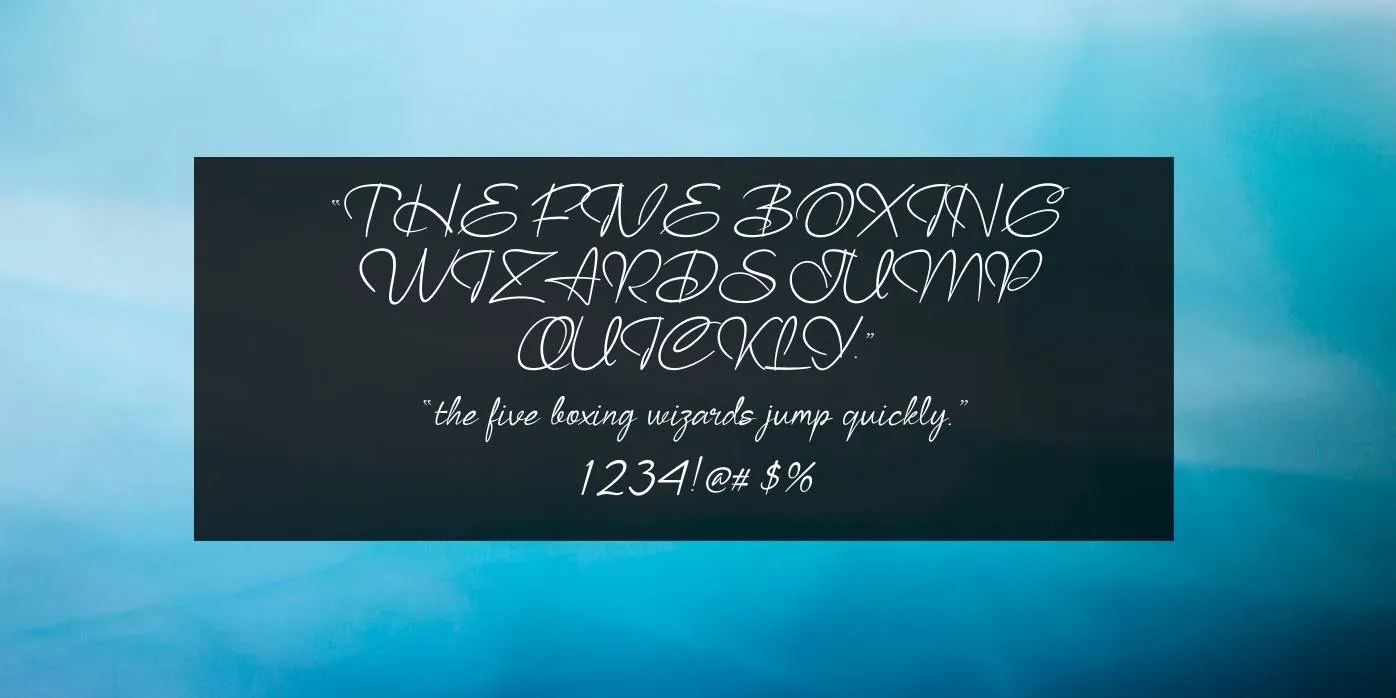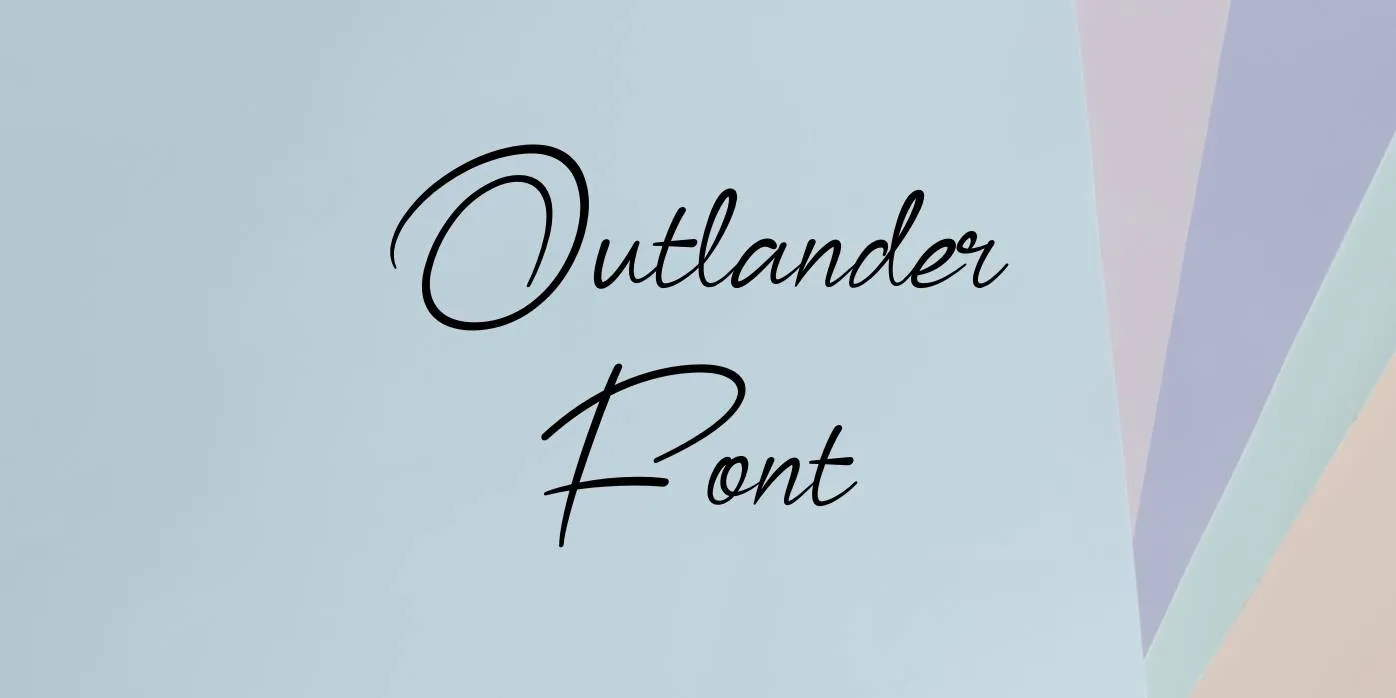
Outlander Font
Here, we are going to introduce a stylish typeface known as Outlander Font. This awesome typeface belongs to the script family. This family was developed by Bonjour Type Foundry. It is suitable for CSS and SVG.
An amazing typeface possesses a stylish look and will surely give an outstanding touch to your designs. In addition, this gorgeous font is perfect for branding, invitations, quotes, product packaging, headers, and much more. You can also use this typeface for Adobe and Canva. You can also use hoodson script font which is closest to this font family.
Outlander Font has available in two styles including Regular and Alternate. Both styles contain upper & lowercase characters, numbers, and symbols, and support multilingual languages. Therefore, you can easily create unique designs according to your own choice. You can also utilize the online generator tool of this typeface for different designs.